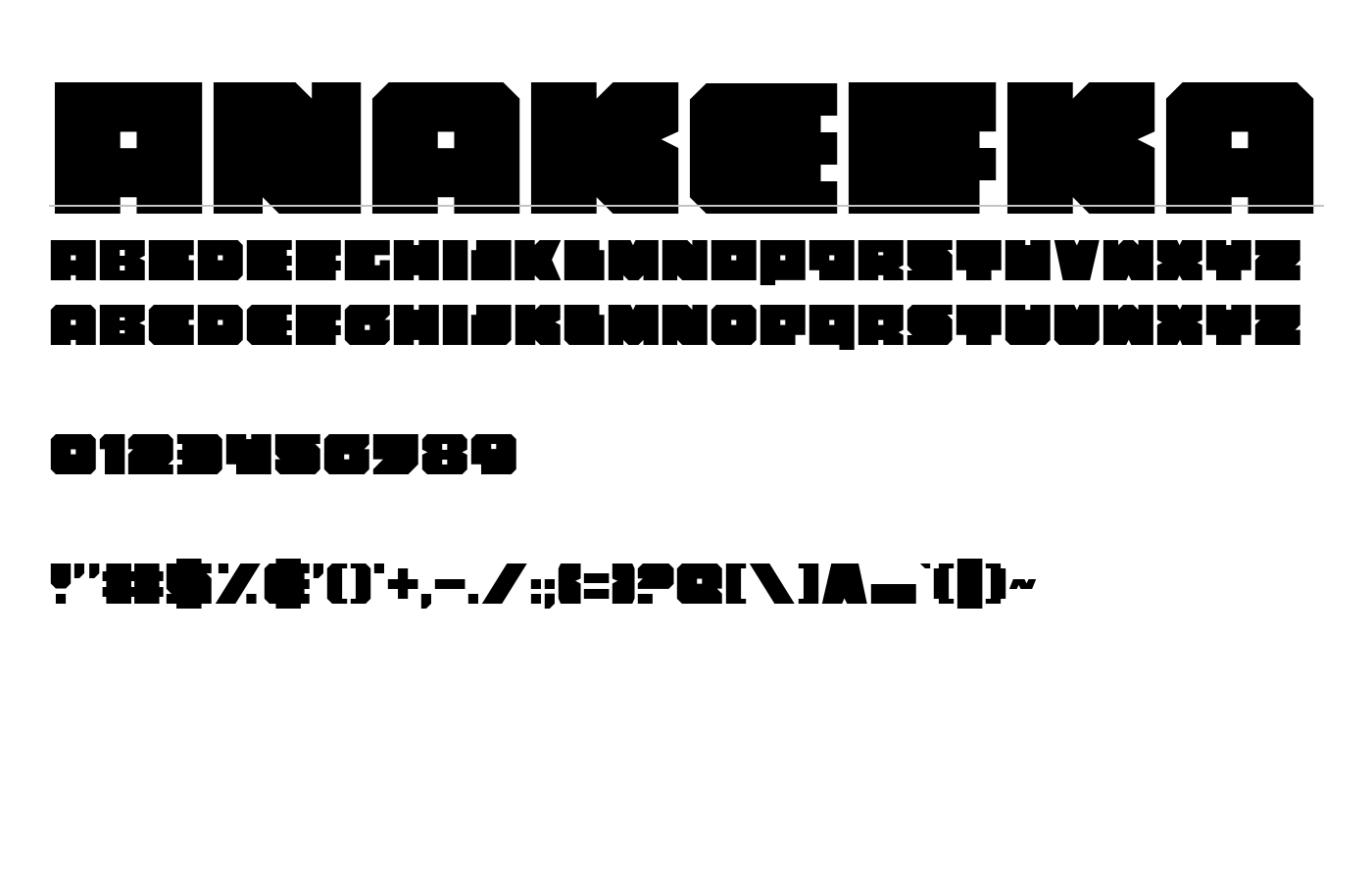
Anakefka is a bold, geometric sans serif font with a strong, blocky appearance that demands attention. Its heavy weight and condensed width, along with sharp, angular corners, give it a modern and industrial feel, making it ideal for impactful headlines, logos, and branding where a powerful and confident look is needed. This font works best in display uses where its unique, striking shapes can create a memorable and dynamic impression.
Anakefka Font
About Anakefka Font